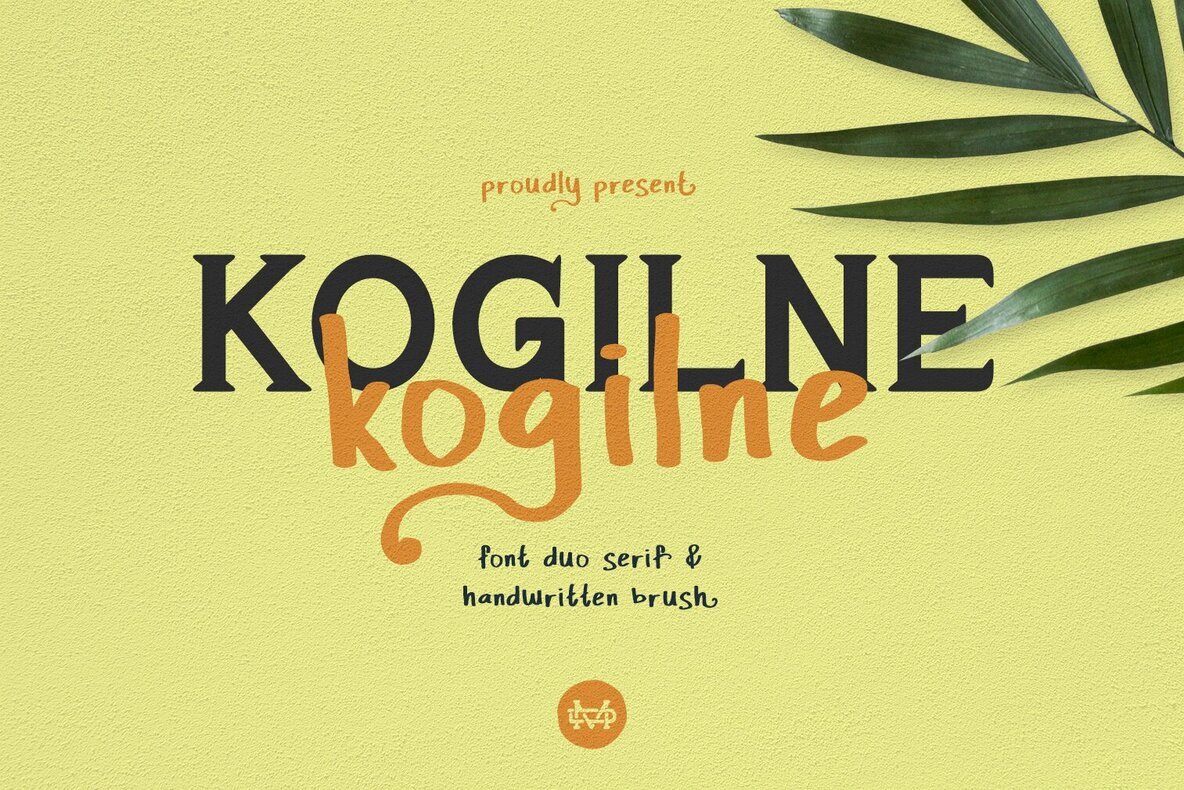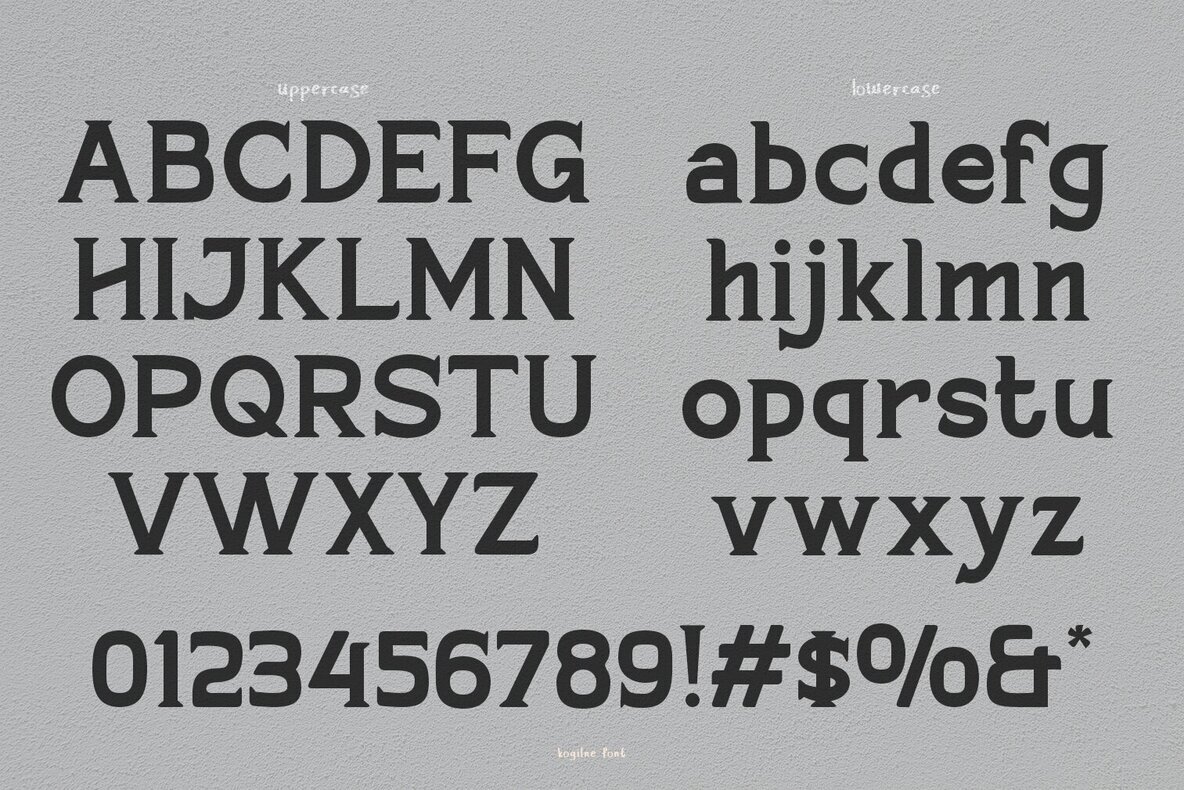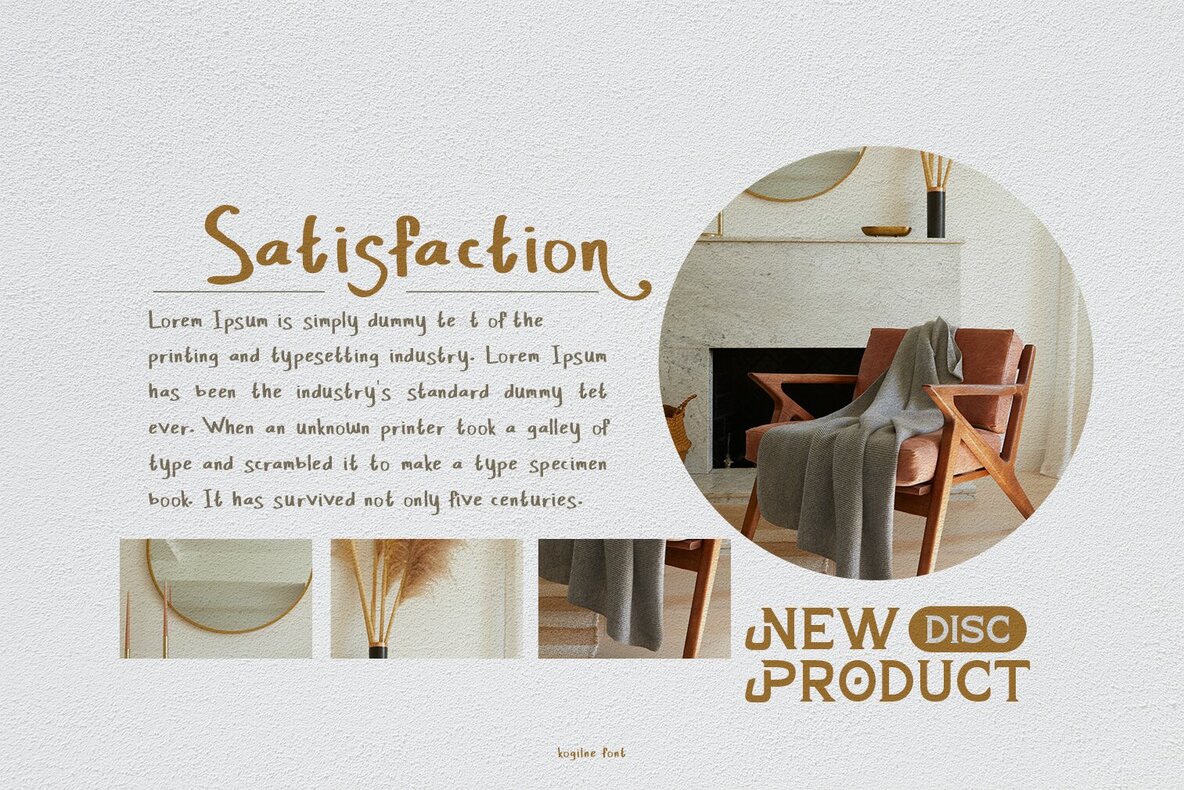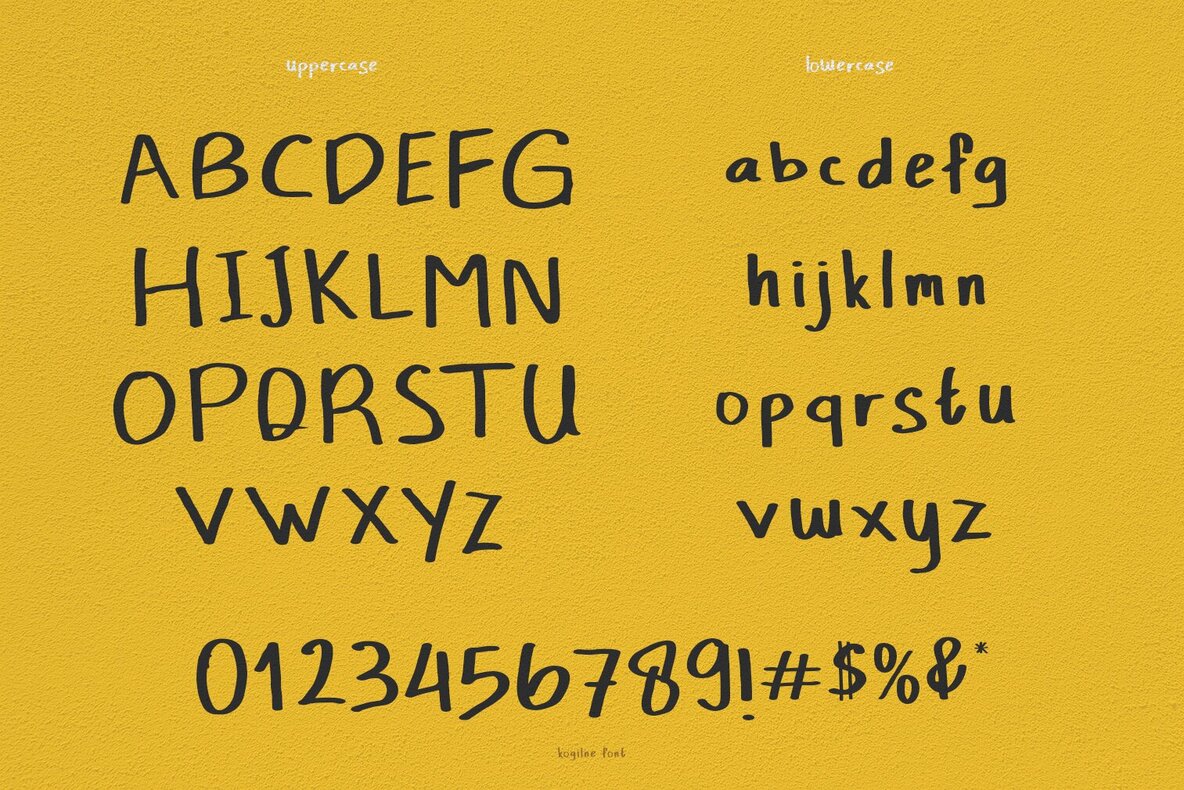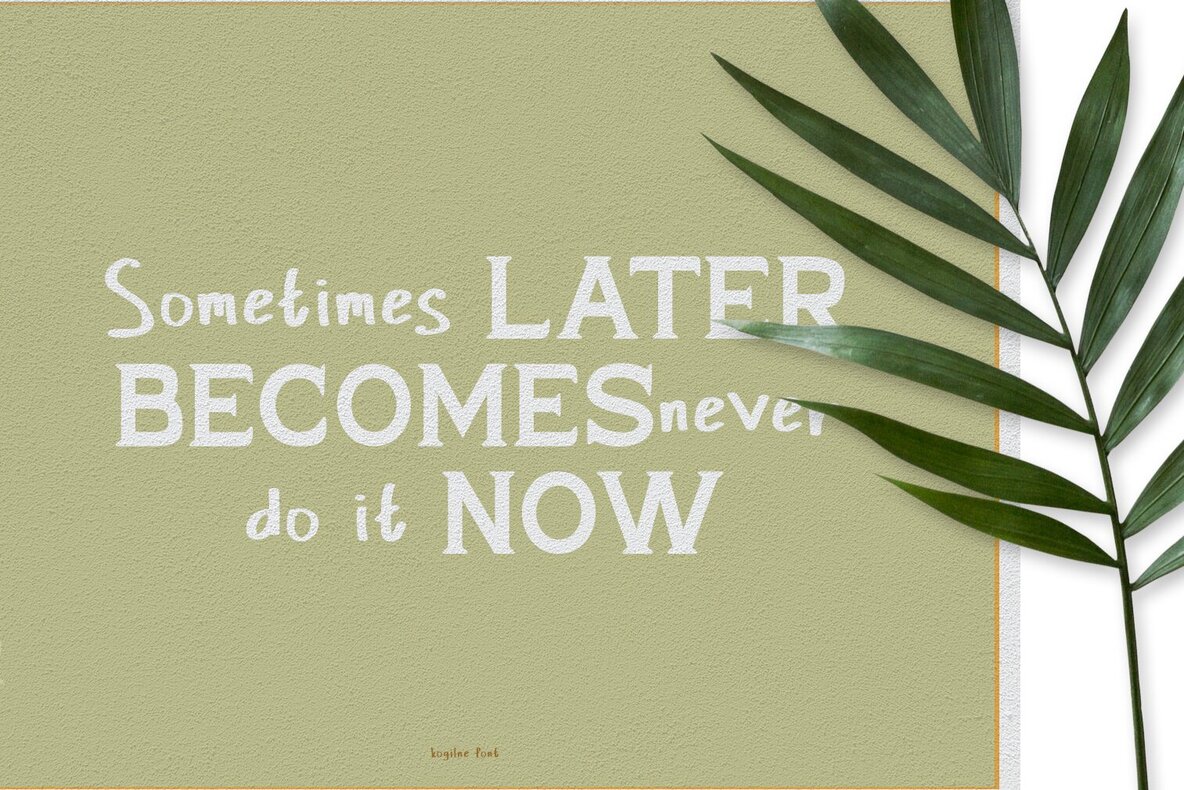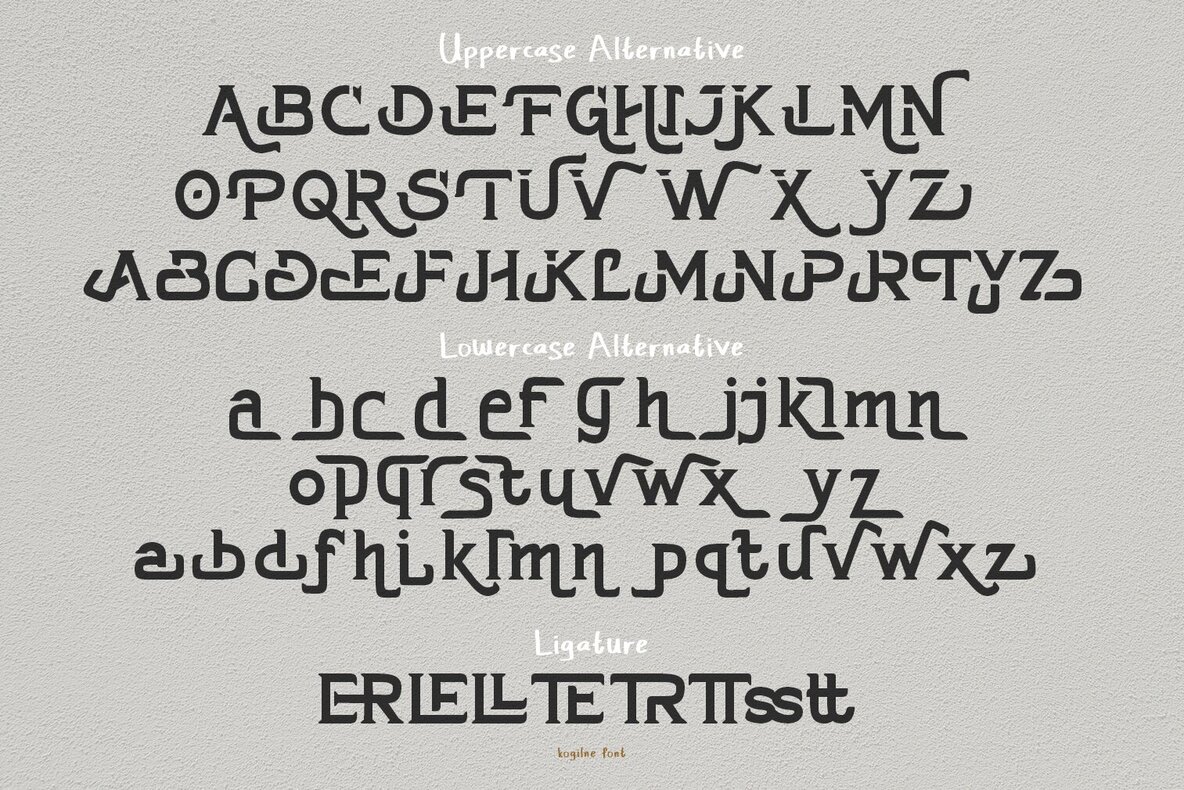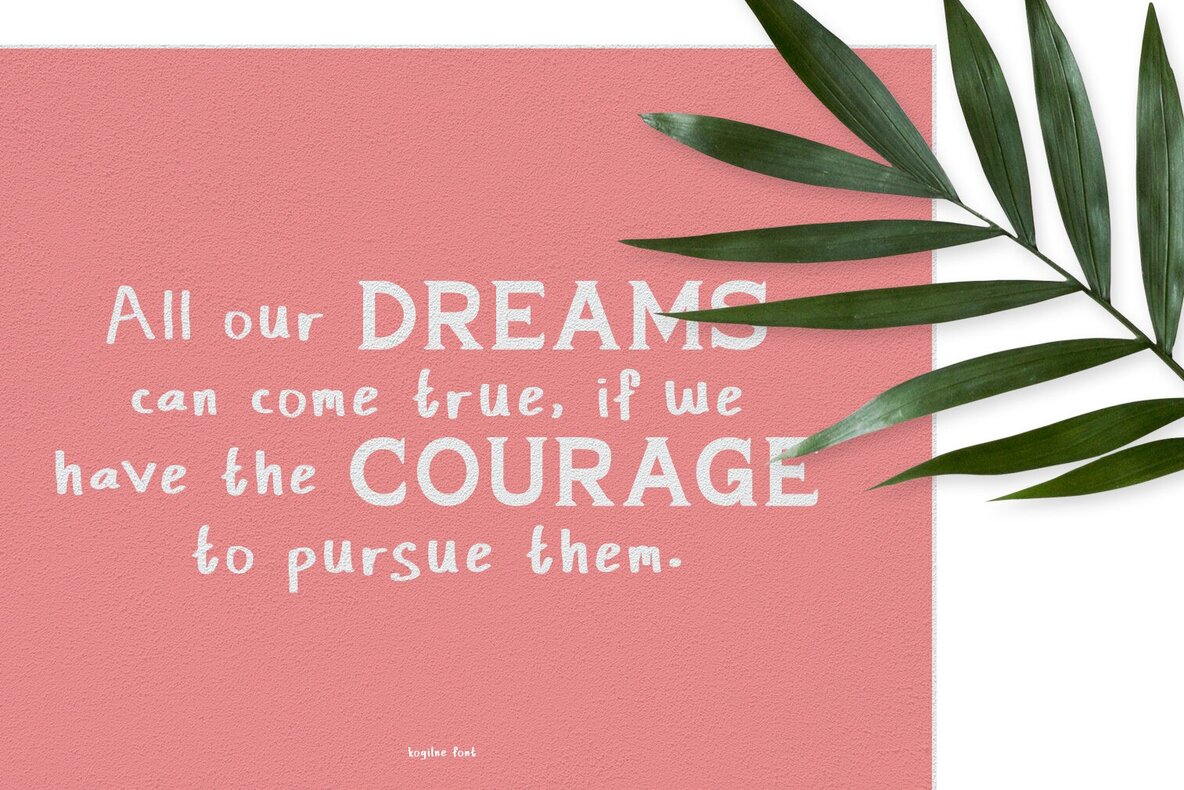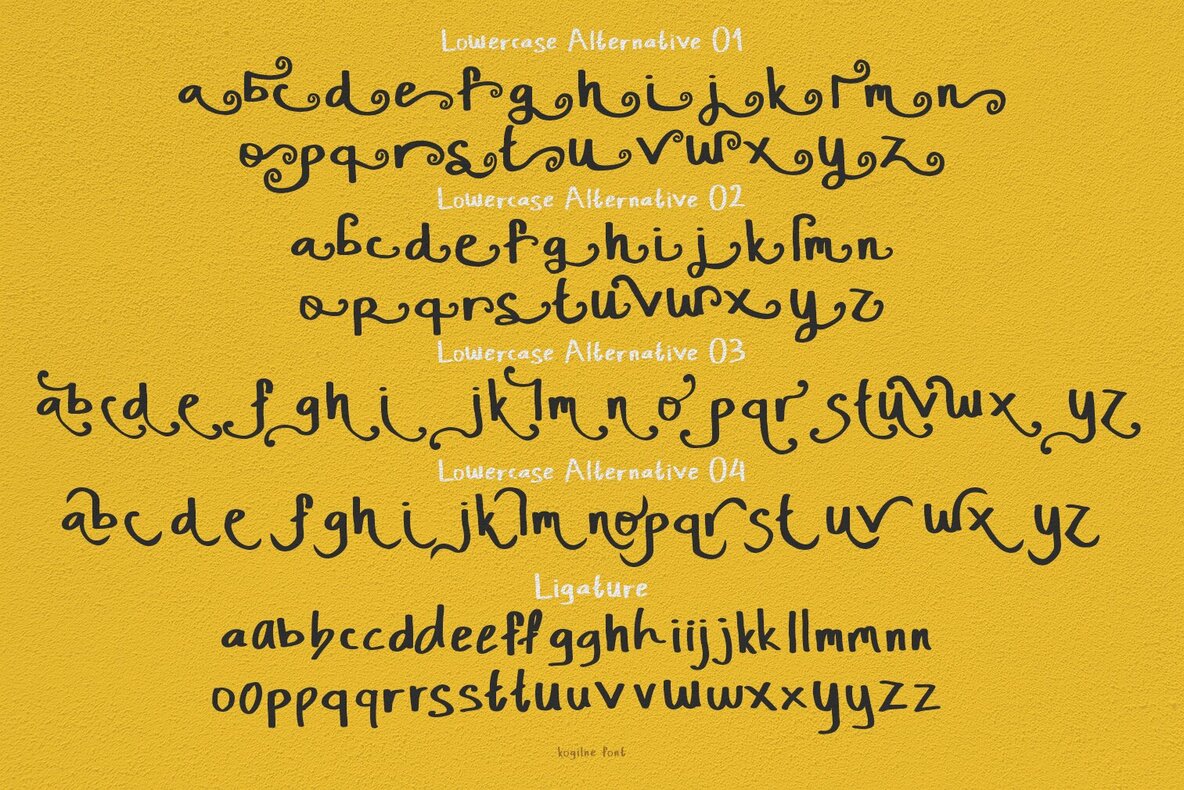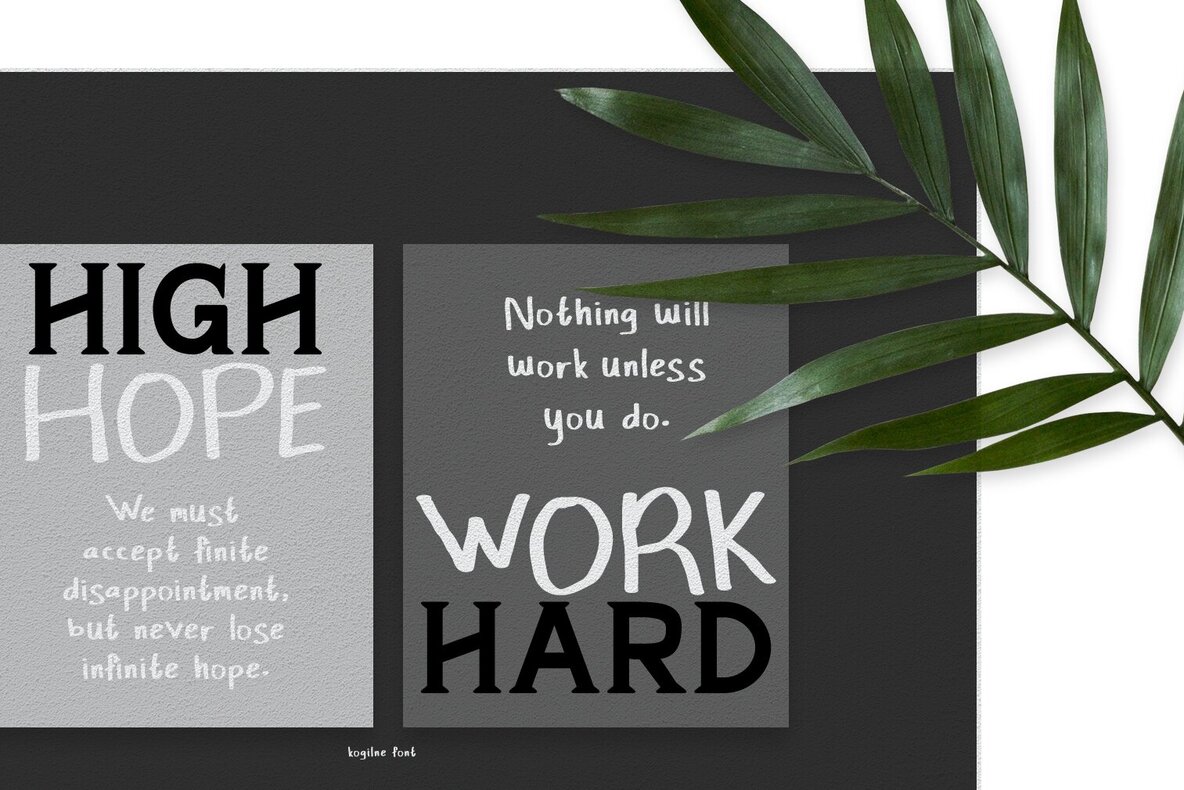
Kogilne Font
Kogilne Handwritten
Kogilne Serif
Kogilne merges the sophistication of a duo serif font with the charm of natural handwriting. Though minimalist in essence, this font exudes a luxurious appeal, making it ideal for contemporary branding requirements.Kogilne: Elegant Duo Serif and Handwriting Combination
Application Versatility